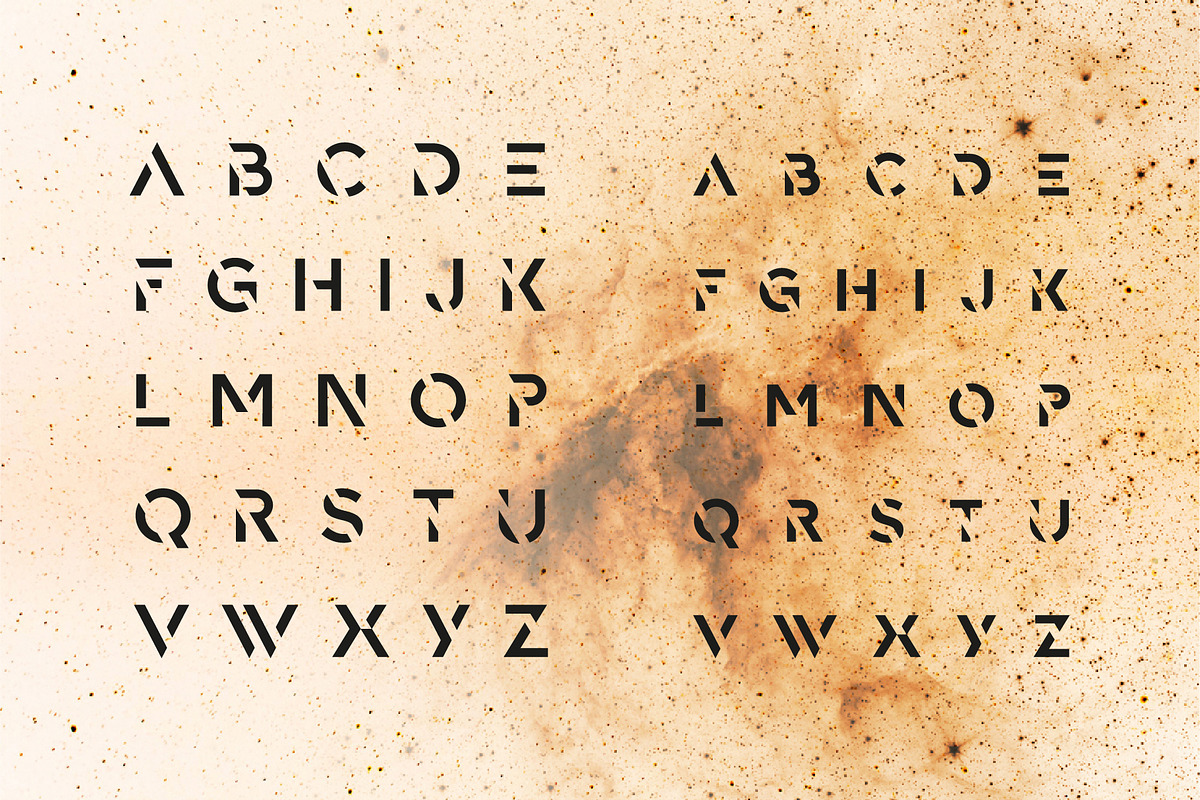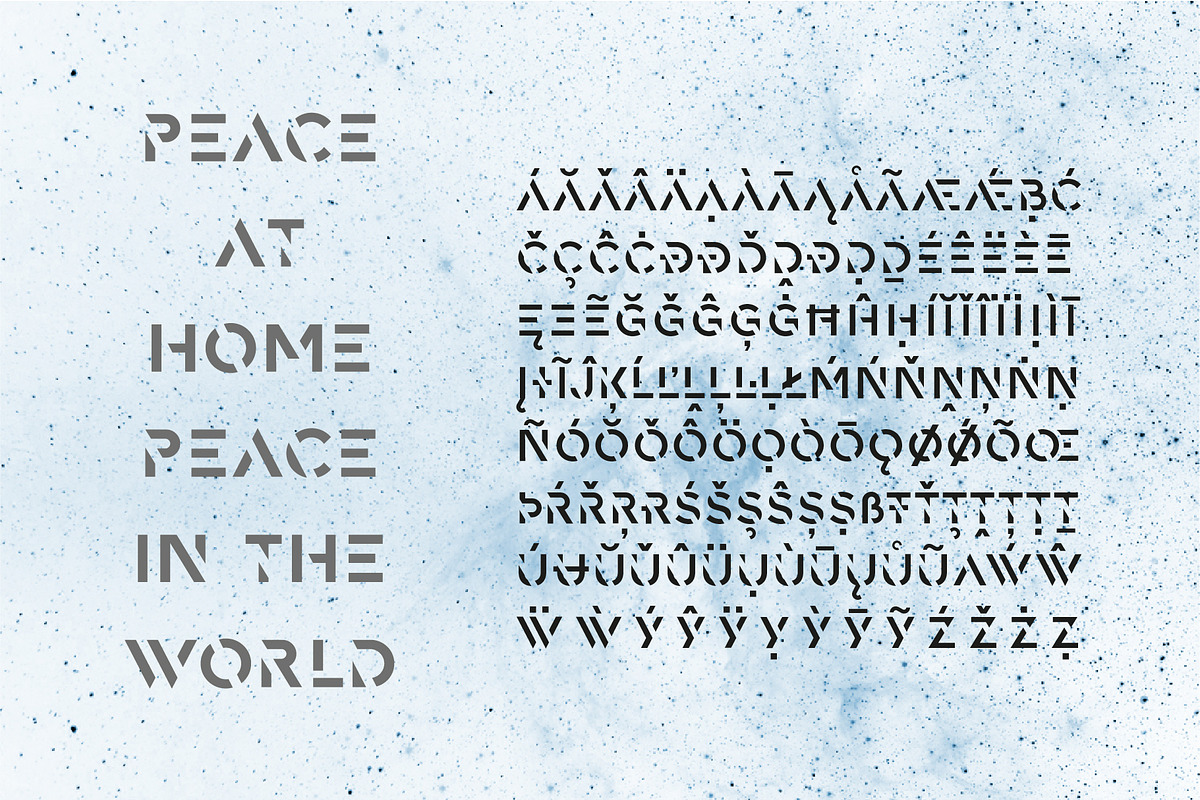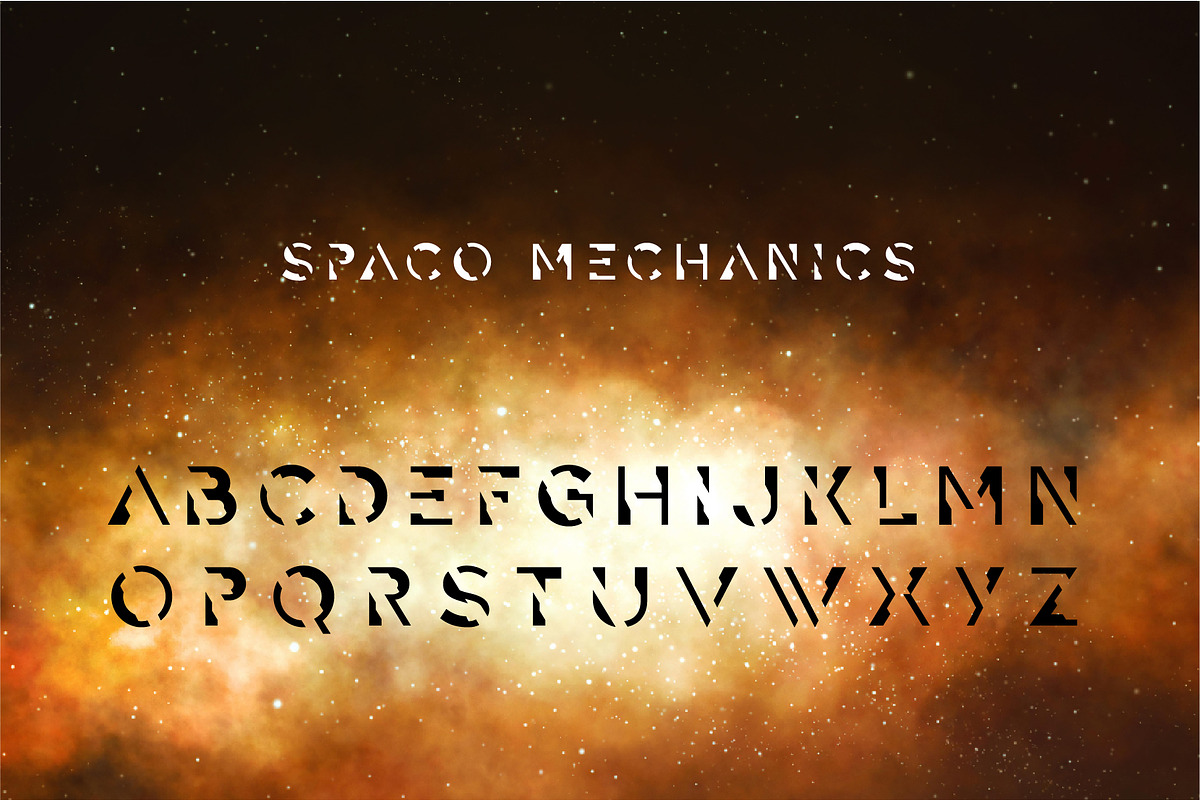
Spaco Stencil SC
Spaco is a stencil font that has a sci-fi impact. It's a nice choice for headlines, short sentences, signs in movies, games or anything that needs sci-fi effect.